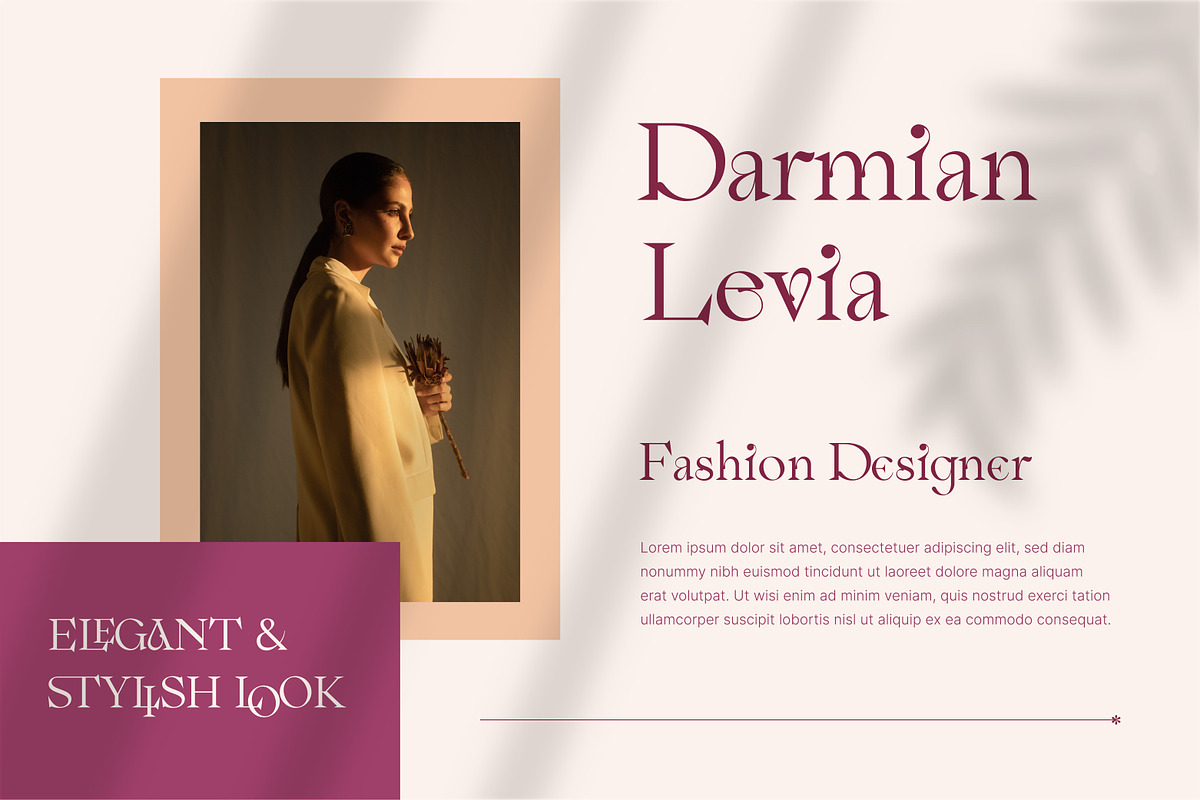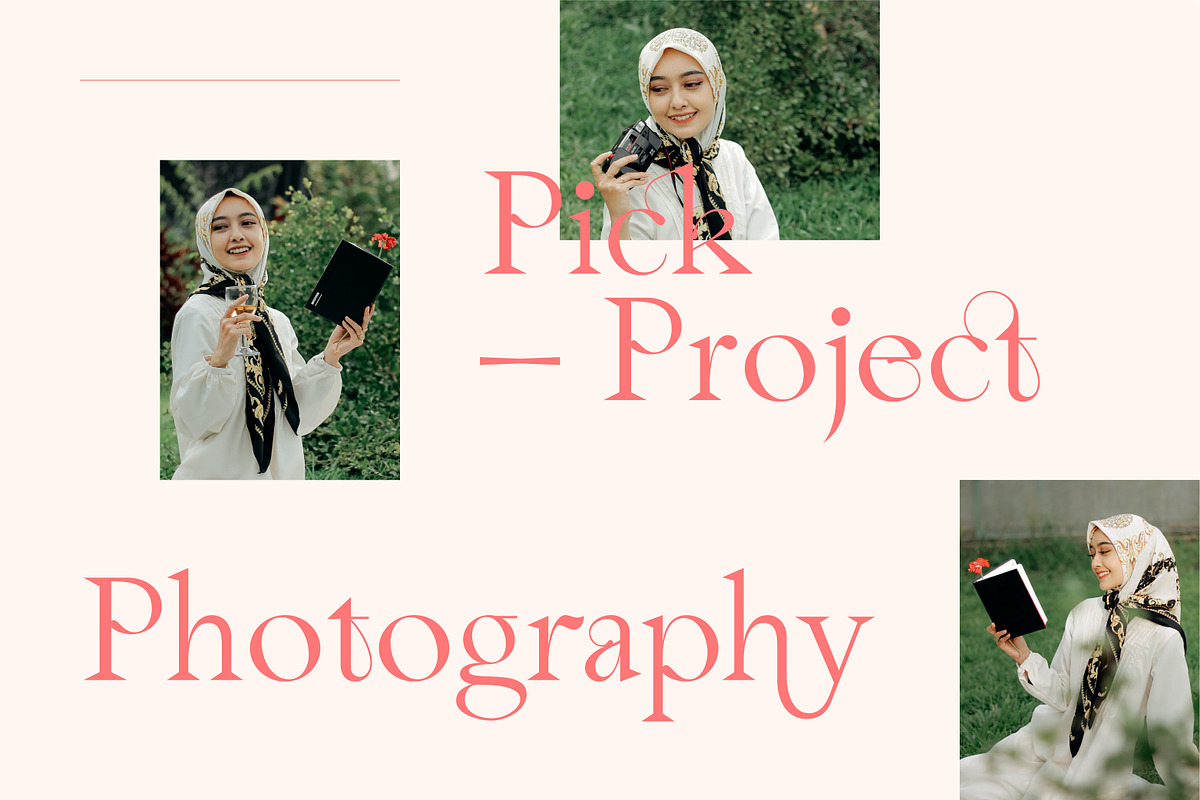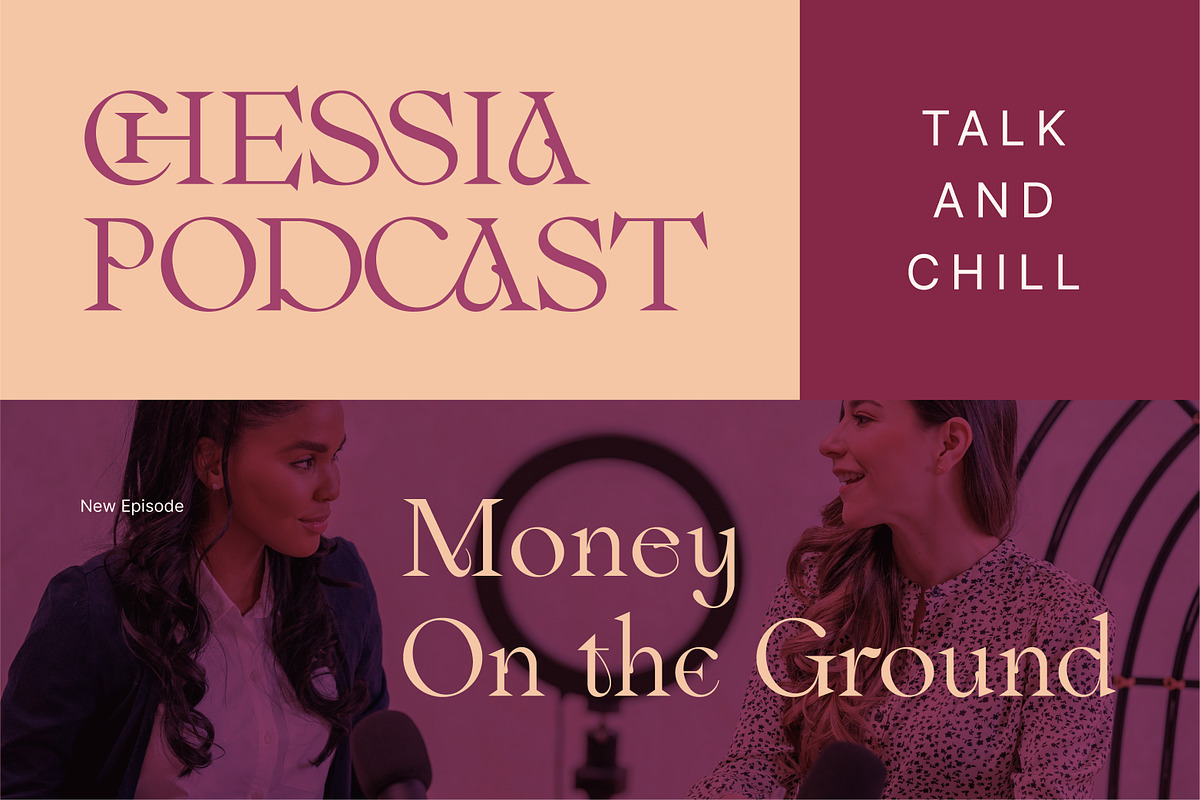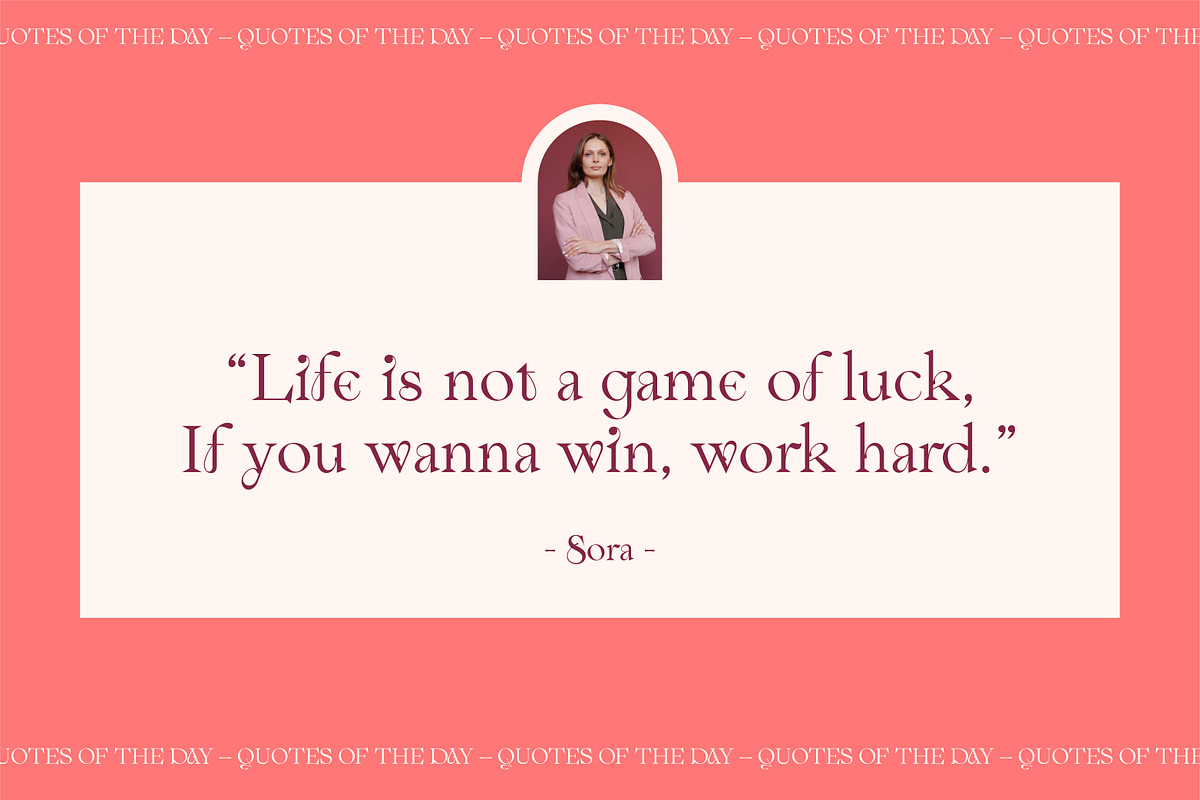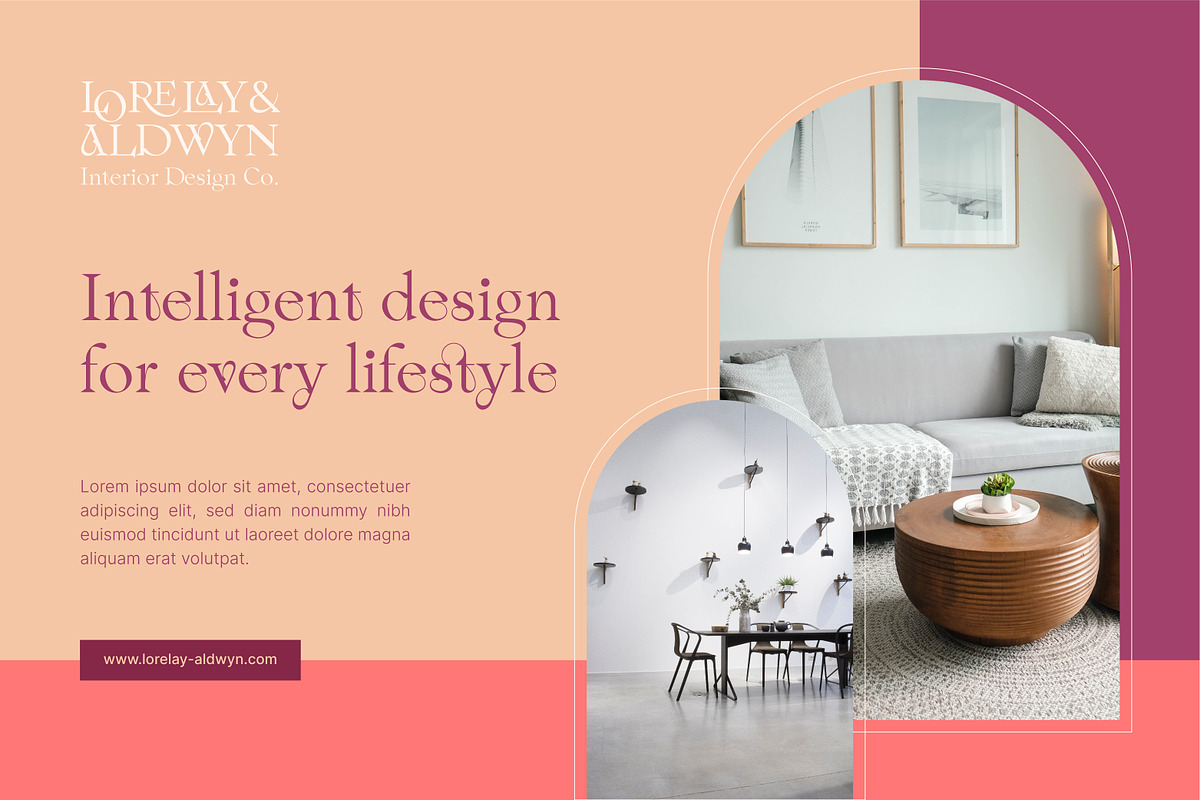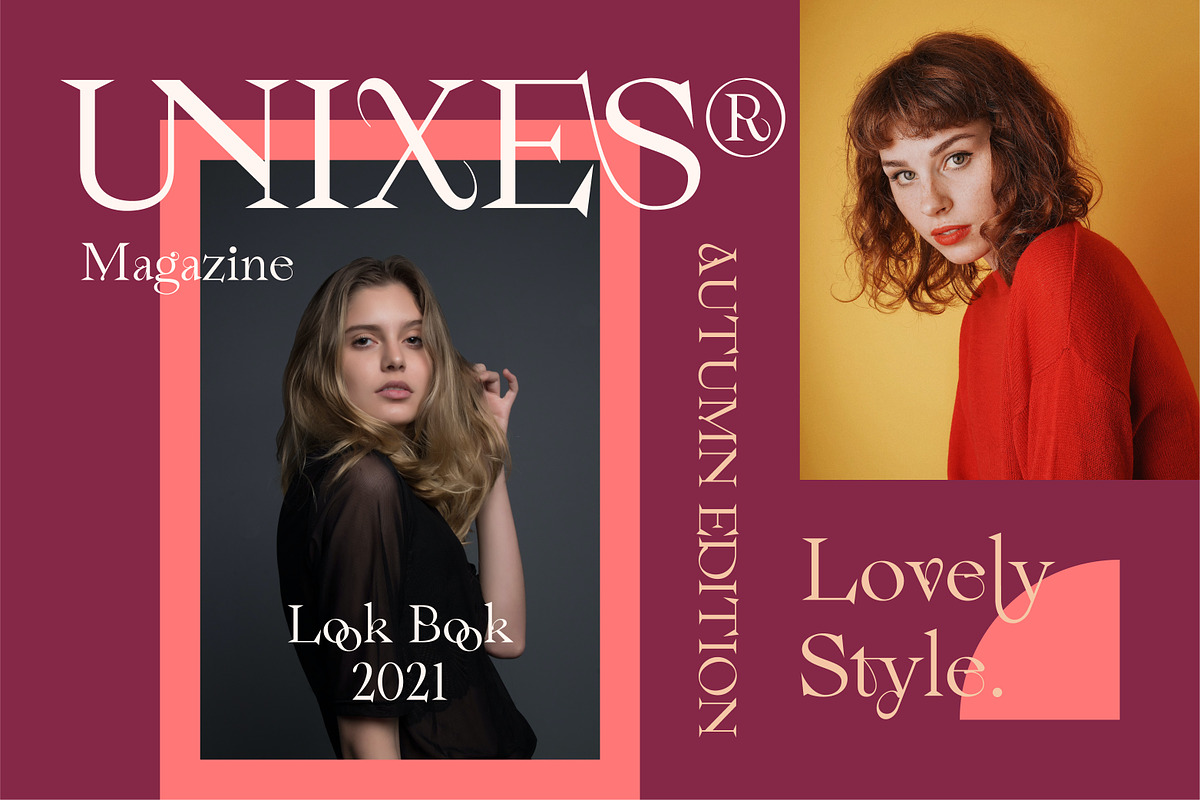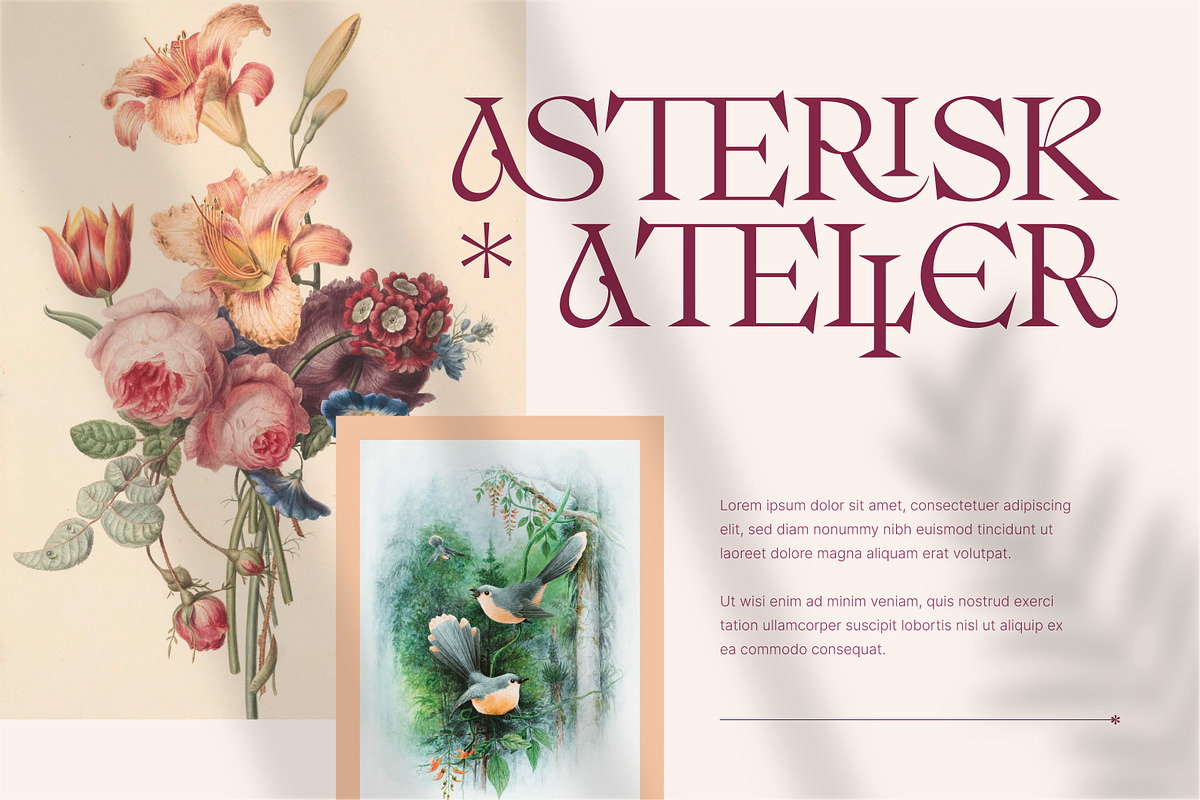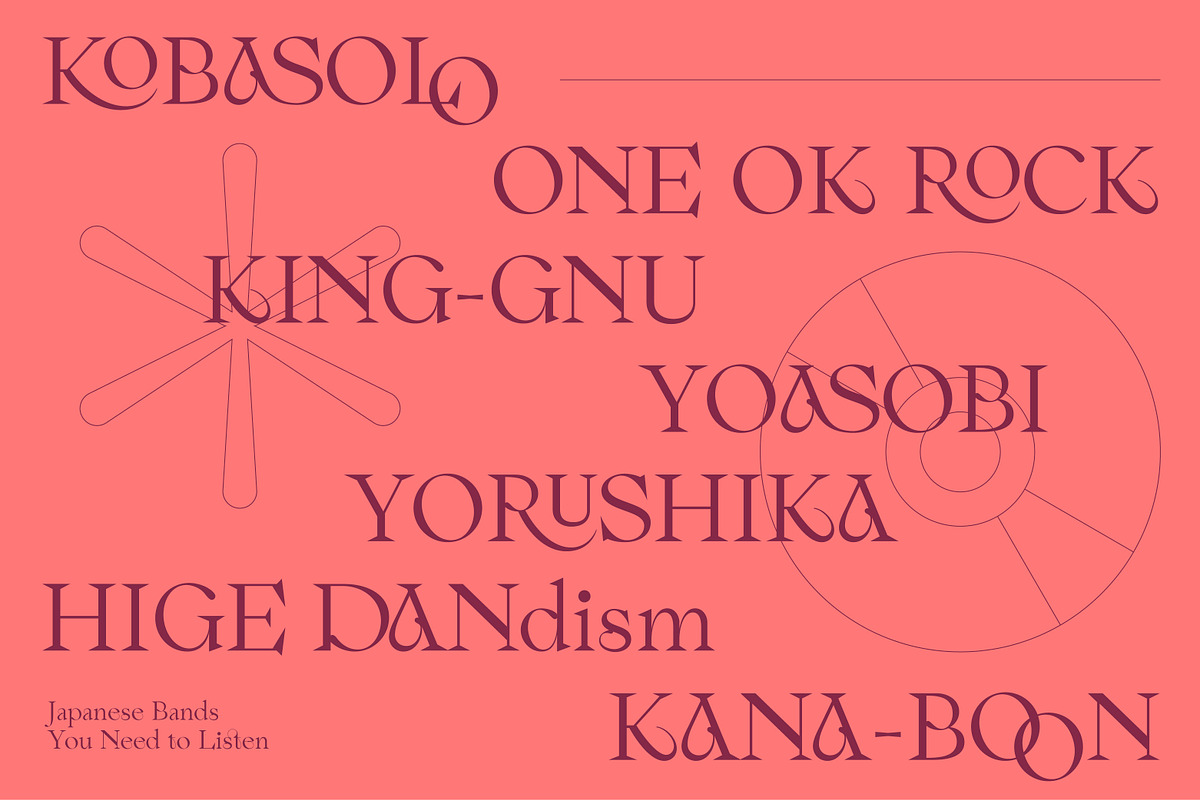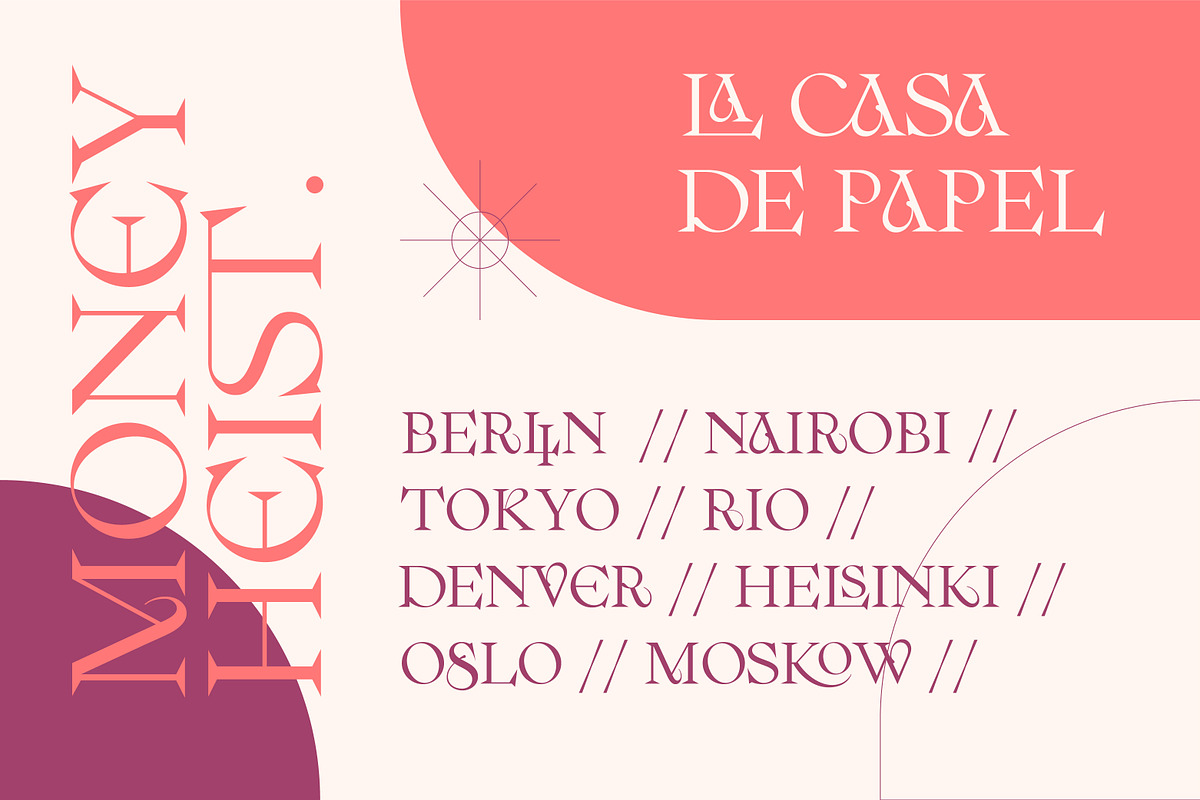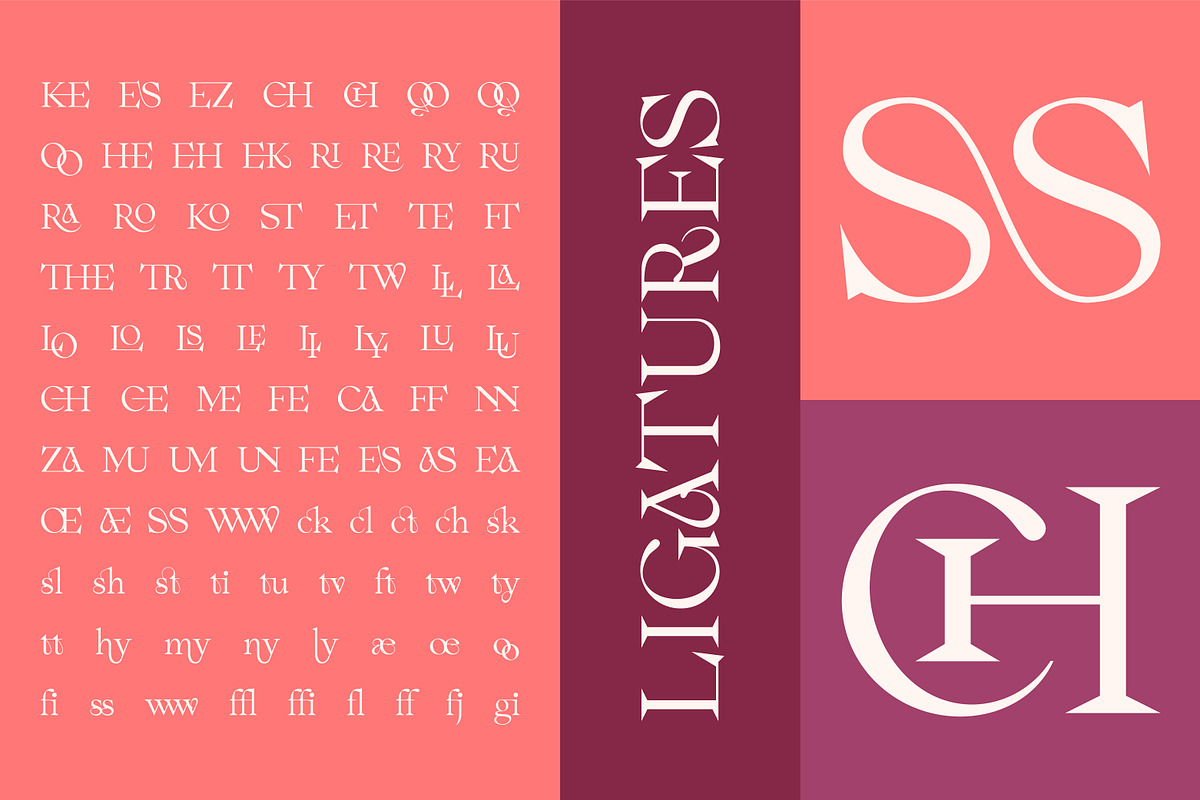
AO Esmeray - Display Typeface
AO Esmeray is modern and classy serif font. AO Esmeray is a display font with a bunch of stylish ligatures and alternates in sharp weight look . AO Esmeray is a versatile font that ready to make your designs more stand out such as posters, magazines, branding, logos, label, merchandise, presentation, advertising, cards, quotes and so much more!